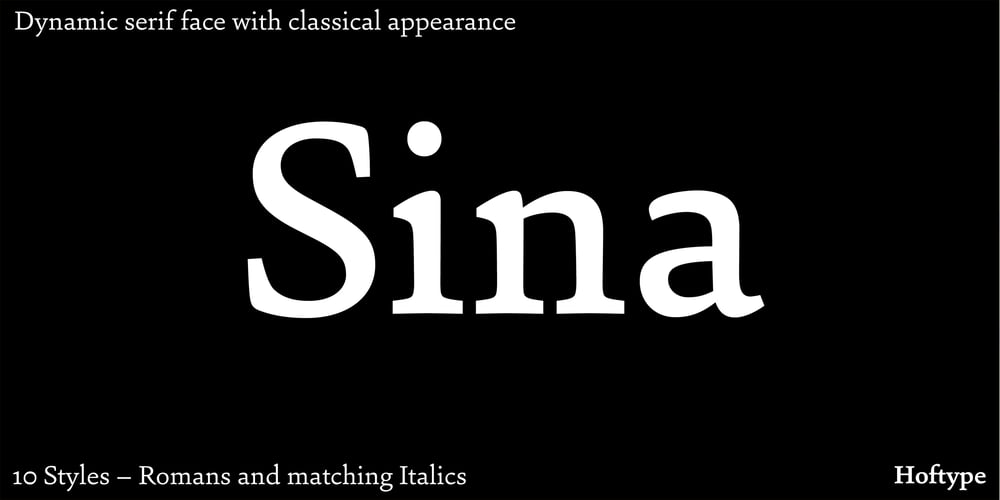
Sina
Sina font
Sina Font Family was designed by Dieter Hofrichter and published by Hoftype. Sina contains 12 styles and family package options. Sina is a strong, sturdy and self-confident serif accented face. Distinct ascenders and descenders in classical proportions ensure pleasant reading. Robust but assertively warm, it recalls and references the virtues of early classical printing types but presents a distinctly contemporary look. With its even text flow it works very well for long texts. It is also great for headlines and in larger styles. An extended, fine-tuned range of weights renders it suitable for almost every application. Sina comes in 12 styles and in OpenType format. All styles contain standard and discretionary ligatures, small caps, proportional lining figures, tabular lining figures, proportional old style figures, lining old style figures, matching currency symbols, fractions, and scientific numerals. Sina supports West European, Central and East European languages.